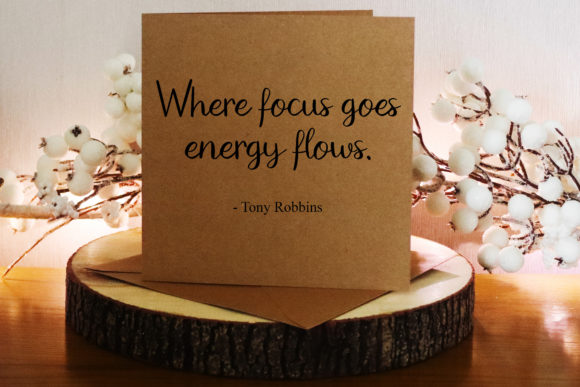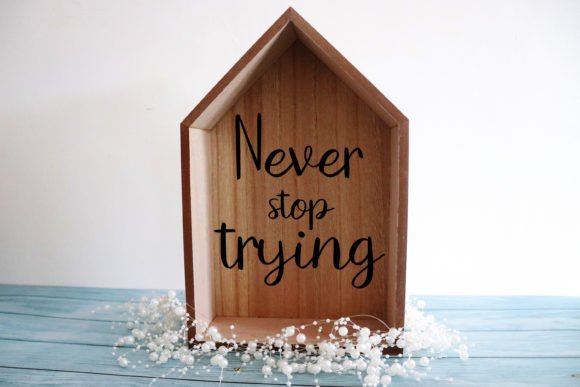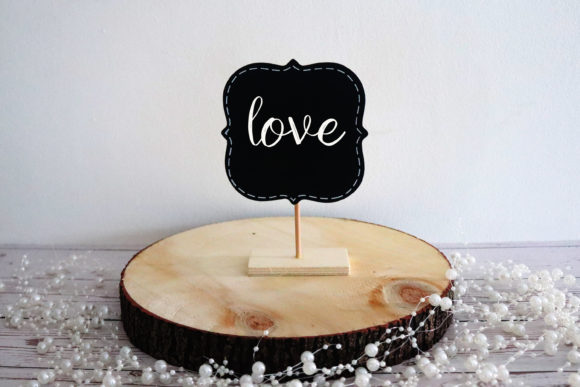
Introduction to Keychain Font
Keychain is an authentic handwritten font.
Its flexibility and neat style will brighten up each of your designs Have fun with this cool font and explore its endless variations.
Keychain Font offers exceptional quality and versatility, making it a valuable addition to your design toolkit. Whether you’re creating for personal projects or commercial use, Keychain Font delivers professional results.